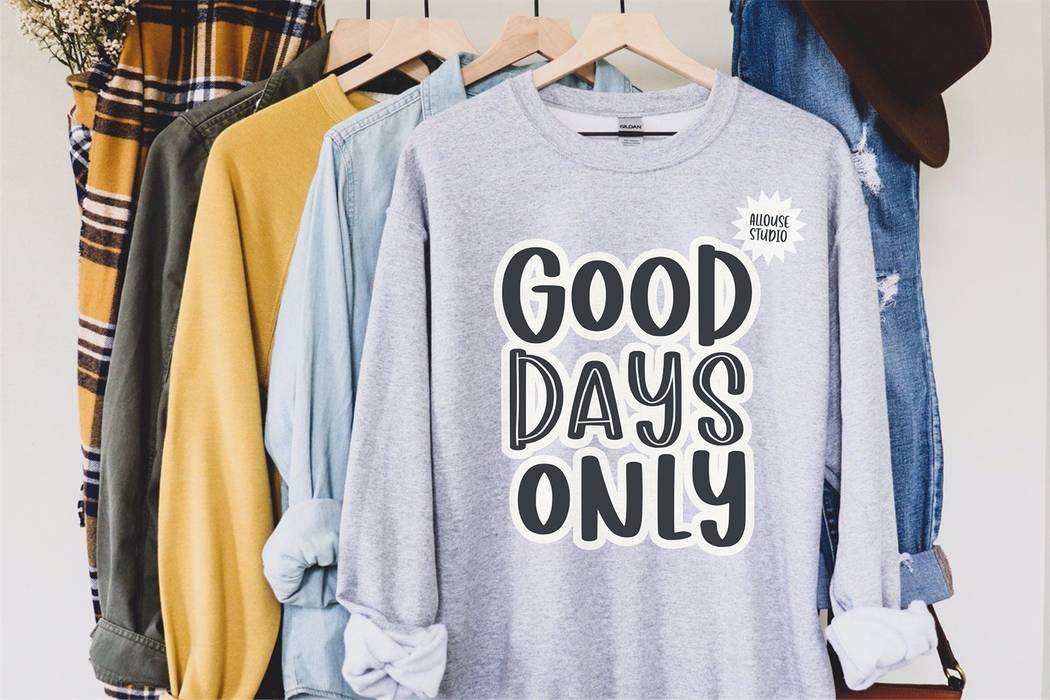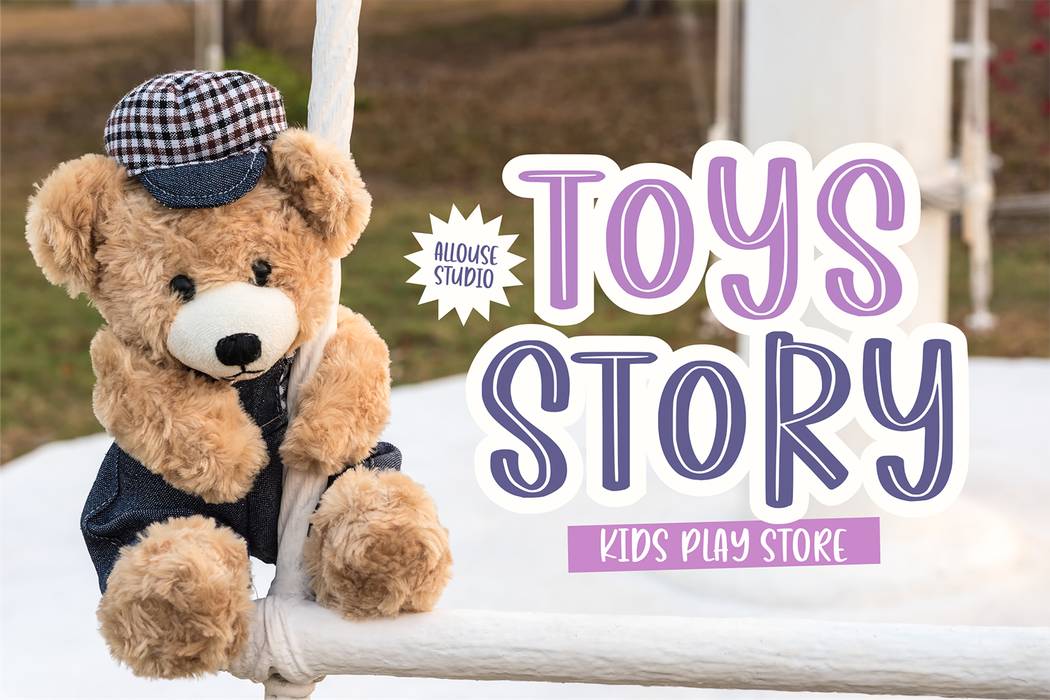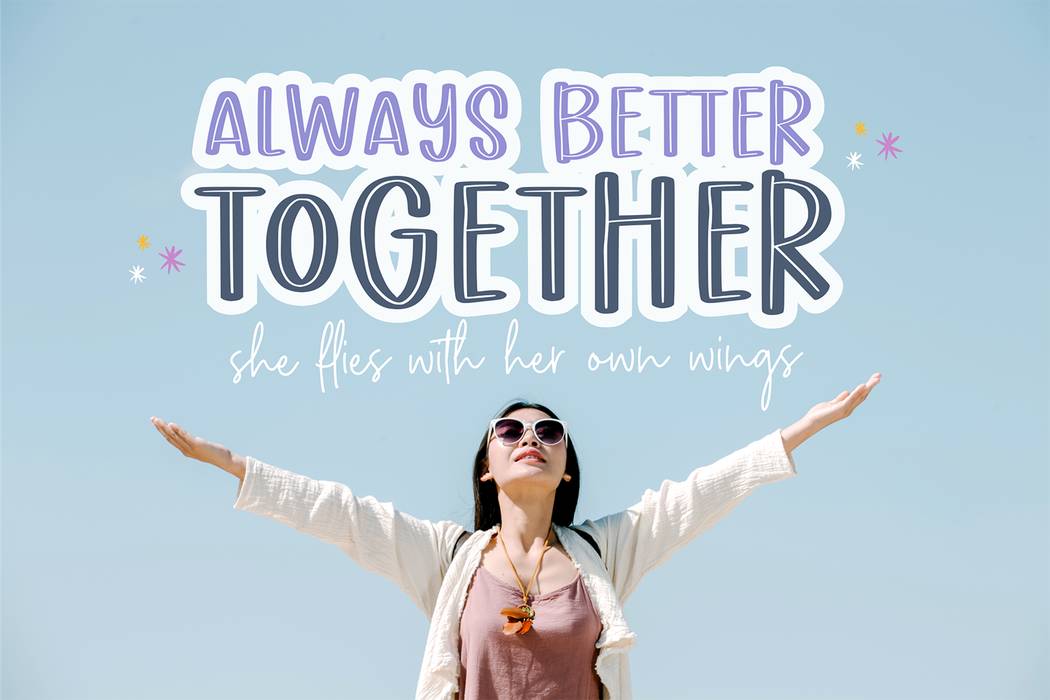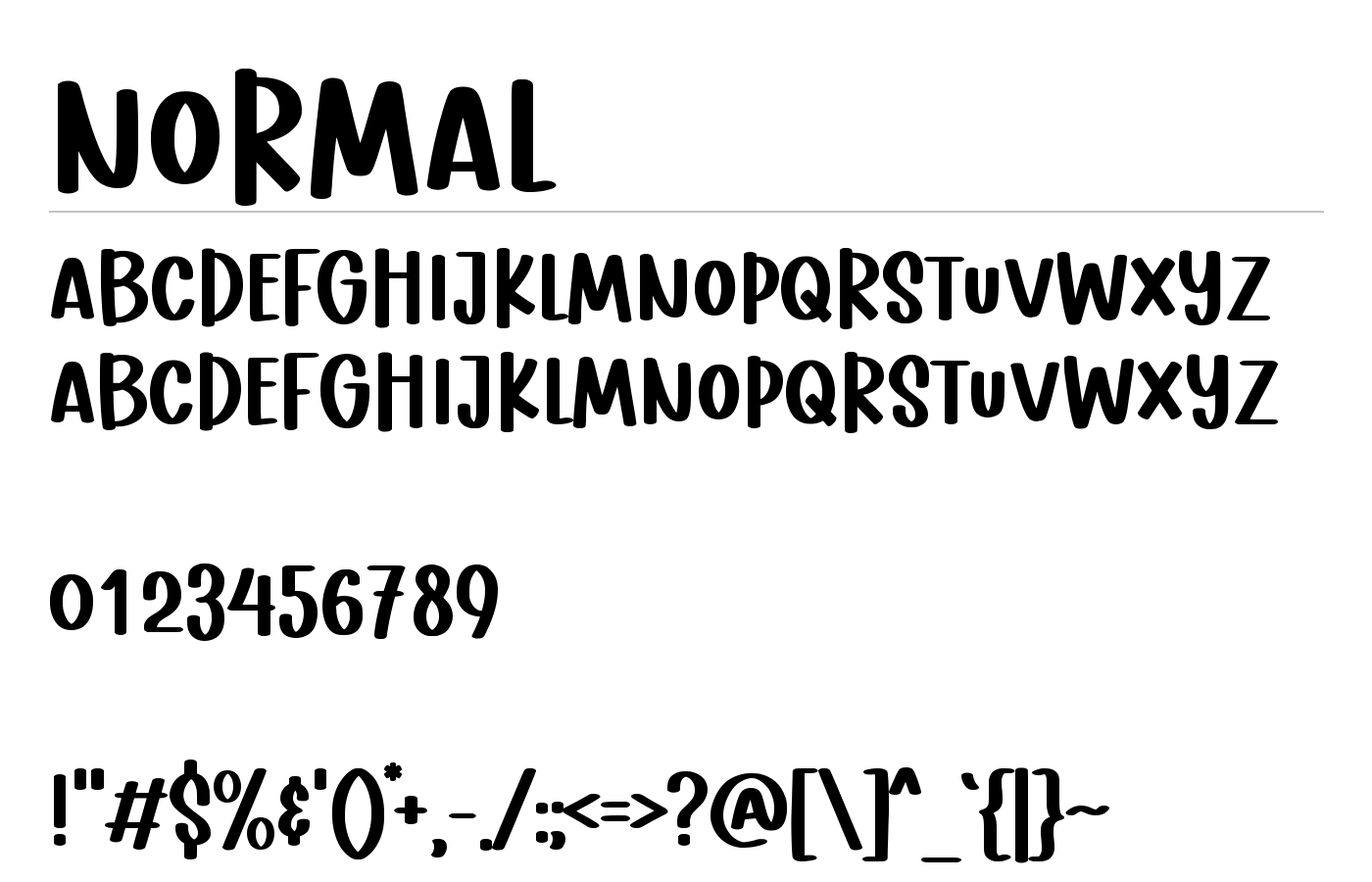
Hello Hungry is a lively and playful sans serif font with a hand-drawn feel, featuring bold, slightly irregular letterforms that exude a casual and friendly personality. Its tall x-height and moderately condensed width make it highly readable for headlines and packaging, especially in fun, informal contexts such as food branding or children’s products. This font’s quirky charm and energetic style bring warmth and approachability to any design.
Hello Hungry Font